Curvy fonts are a popular choice for designers looking to add a playful and creative touch to their work. These fonts can convey a sense of warmth and approach-ability, making them an excellent choice for a range of projects.
Whether you’re designing a logo, a website, or a social media post, a curvy font can add a touch of charm and whimsy.
With so many curvy fonts available, it can be challenging to choose the right one. That’s why we’ve compiled a list of the best curvy fonts to help you find the perfect fit.
From bold and bubbly to soft and delicate, each font on this list has been selected for its ability to convey a sense of fun, warmth, and playfulness.
So, why not experiment with a curvy font and add some personality to your next design project?
10 Best Curvy Fonts
These are some of the best curvy fonts you can trust to take your designs up a notch.
- Geshina Typeface
- Ruben
- Perugia
- Dingos
- Siegra
- Cysan
- Quill & Ink Sans Font
- RNS Obesa Fat
- Brooklyn Script
- Foxing Font
37+ Best Curvy Fonts
1. Geshina Typeface
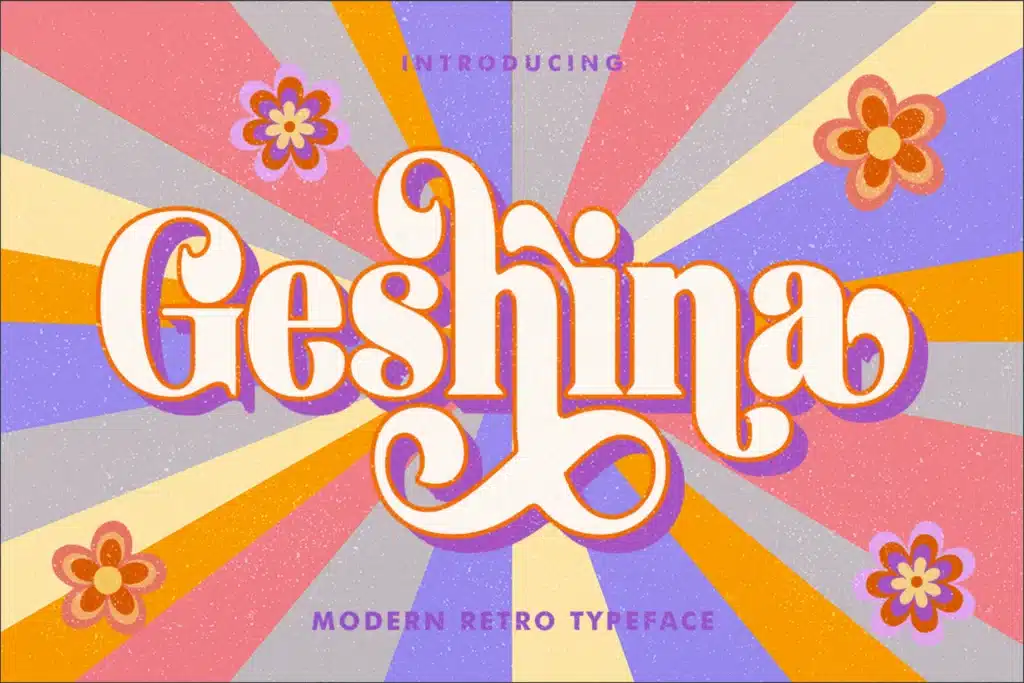
Looking for a font that will add a touch of romance and personality to your designs? Look no further than Geshina! This retro serif font features plenty of curvy letters that give it a refined and cheerful vibe.
We have used it on a number of projects, including wedding invitations and greeting cards, and it never fails to impress.
Our experience with Geshina has been positive overall. We appreciate the font’s versatility and the fact that it comes in three styles: Regular, Outline, and Shadow.
However, we did notice a couple of downsides that we didn’t like. The curves, while charming, can be overwhelming if used too heavily.
Additionally, some of the letters (like the lowercase “e”) can be difficult to read at smaller sizes. Therefore, you may want to look at Buche as an alternative.
Despite these minor drawbacks, we highly recommend Geshina for anyone looking to add a touch of elegance and romance to their designs.
Give it a try and see for yourself – we think you’ll love it just as much as we do!
2. Ruben
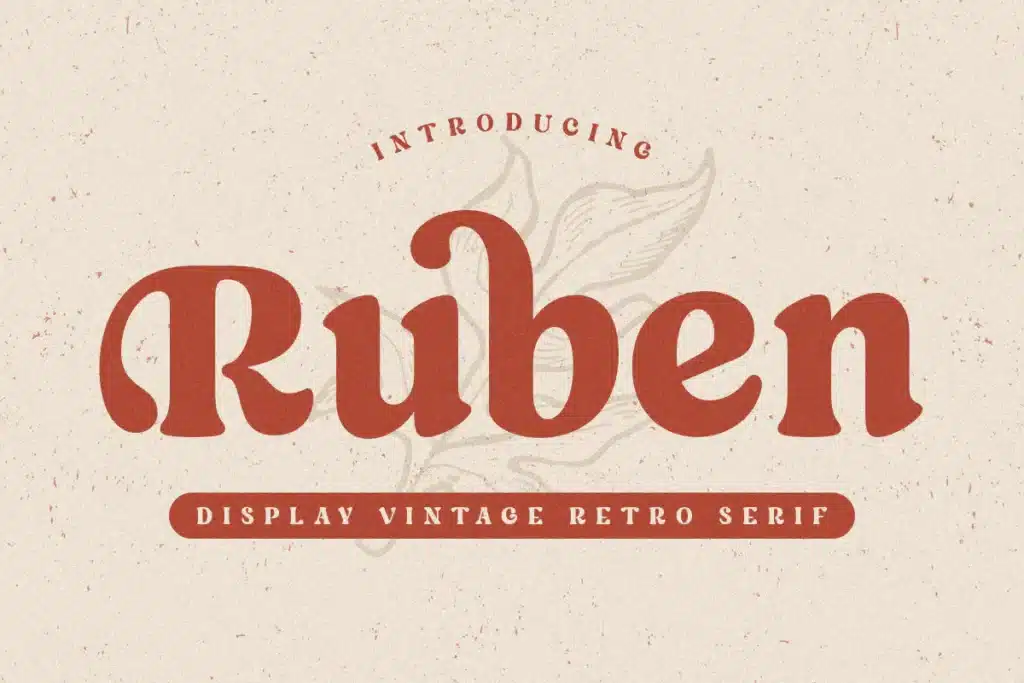
Looking for a modern and vintage curvy font that is both elegant and versatile? Look no further than Ruben Display Vintage Retro Serif.
We, as professional creatives, have had extensive experience using this font and can attest to its uniqueness and eye-catching design. It’s perfect for any project, including branding, wedding designs, product packaging, and more.
We loved how Ruben Display Vintage Retro Serif offers a perfect balance of sophistication and legibility, making it a great choice for various designs.
Its stylistic alternates also allow you to create unique shapes and variations quickly and easily. However, we did not like that the font’s thin strokes made it slightly difficult to read in smaller sizes.
Overall, Ruben Display Vintage Retro Serif is a fantastic choice for anyone looking for a modern and vintage curvy font.
Its unique and elegant design, along with its versatility and legibility, make it a must-have for any designer’s toolkit.
3. Perugia
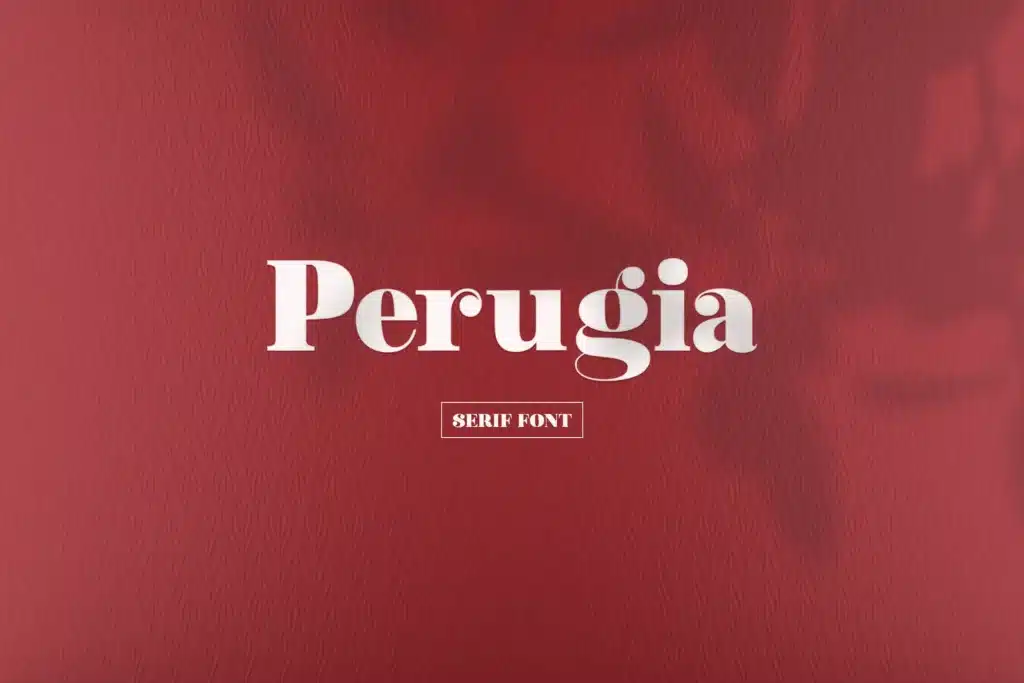
Looking for a standout curvy font that adds a touch of sophistication and flair to your designs? Look no further than Perugia.
As professional creatives, we’ve had the pleasure of working with a wide range of fonts, but Perugia stands out as a true standout in the world of curvy fonts.
The bold, sweeping curves are just the right balance of elegance and attention-grabbing, making it perfect for logos, titles, headlines, and more.
We’ve had the opportunity to use Perugia in various projects, and we love how it elevates any design it’s paired with. Plus, it’s incredibly versatile, pairing well with both serif and sans-serif fonts.
While it may not be the best choice for large blocks of text, as a display font, it truly shines.
In summary, Perugia is a must-have if you’re looking for a curvy font that exudes elegance and sophistication.
4. Dingos
Curvy fonts can often be seen as whimsical or playful, but Dingos takes the concept of curvy fonts to a whole new level.
As professional creatives, we absolutely love Dingos. This display typeface is handcrafted for potent usage, with a versatile touch, tight internal space, and a heavy-built structure that makes it perfect for a wide range of projects.
How do I choose the right curvy font?
Pick a curvy font that fits your project’s tone, whimsical for fun content, refined for luxury or professional branding. Consider legibility, size usage, and font features like ligatures or alternates to ensure the font enhances your message.
Can curvy fonts be used for body text?
While most curvy fonts shine as display or decorative fonts, some with simpler curves and good spacing can work for body text. Test readability at smaller sizes and avoid overly stylized options for long paragraphs.